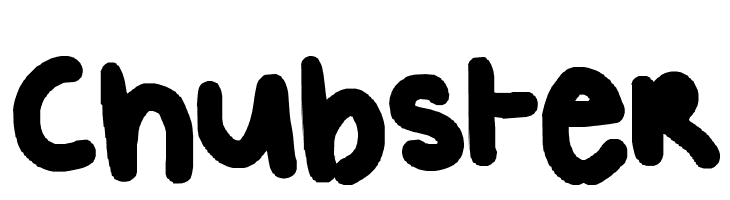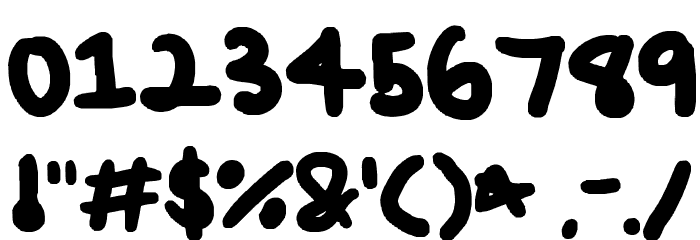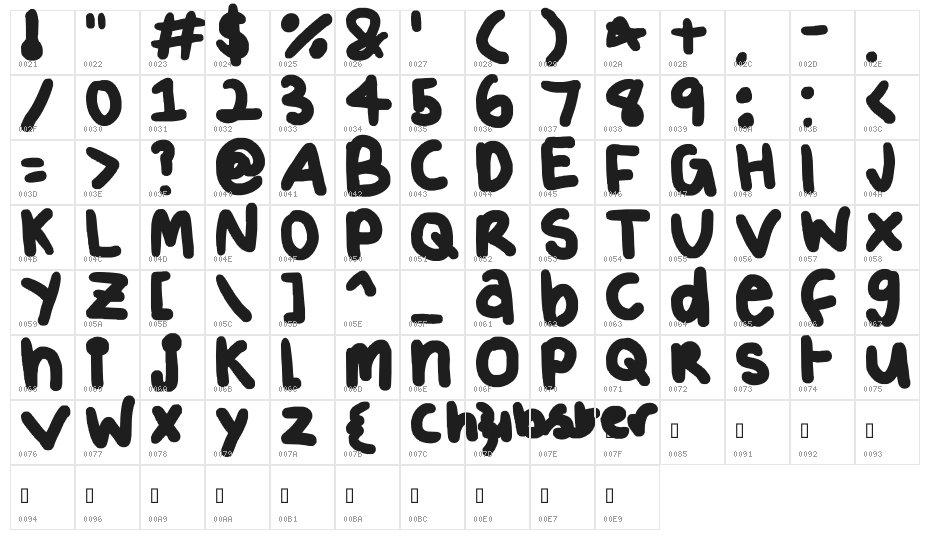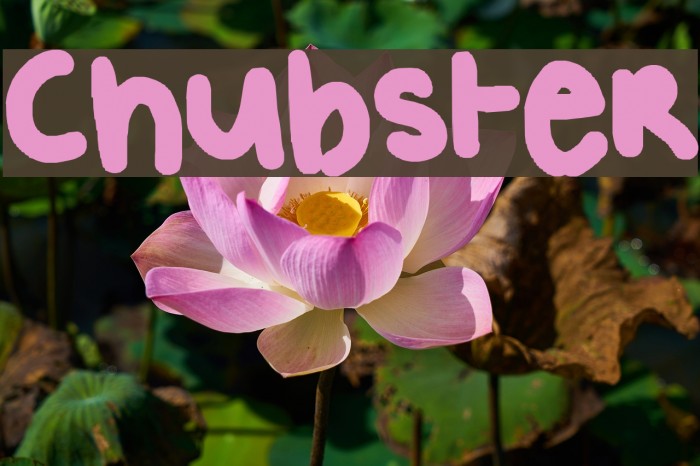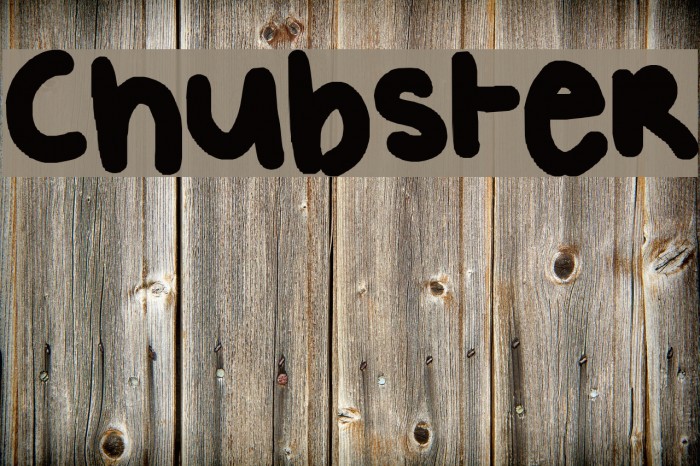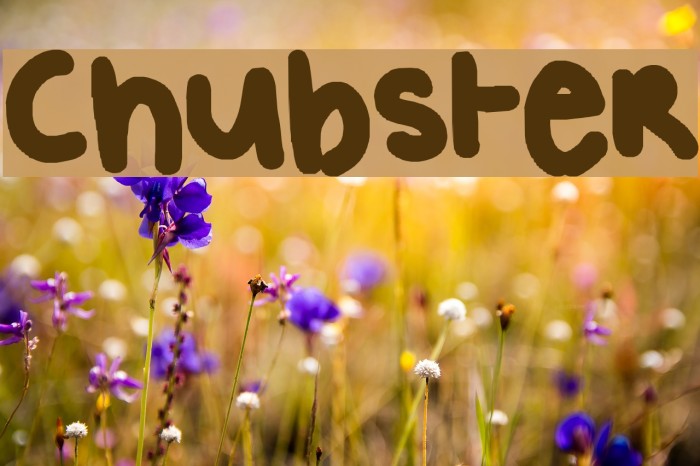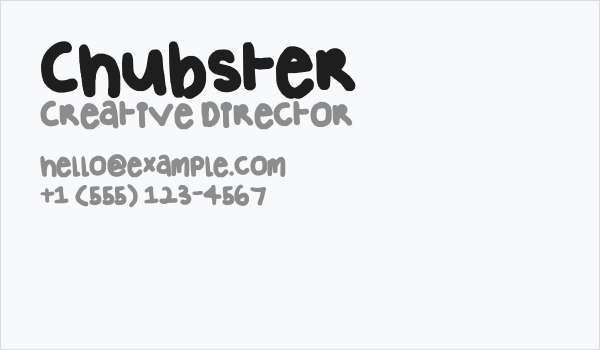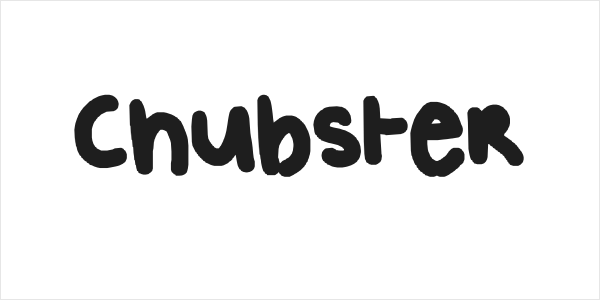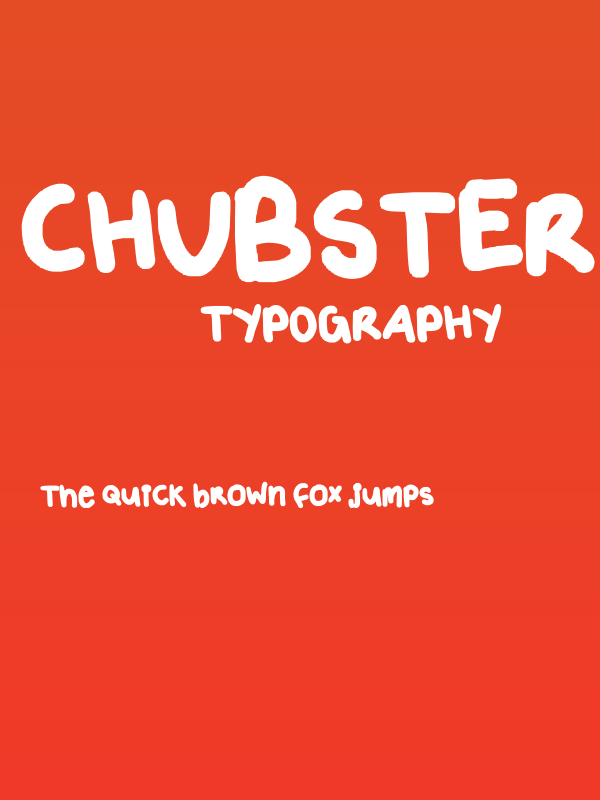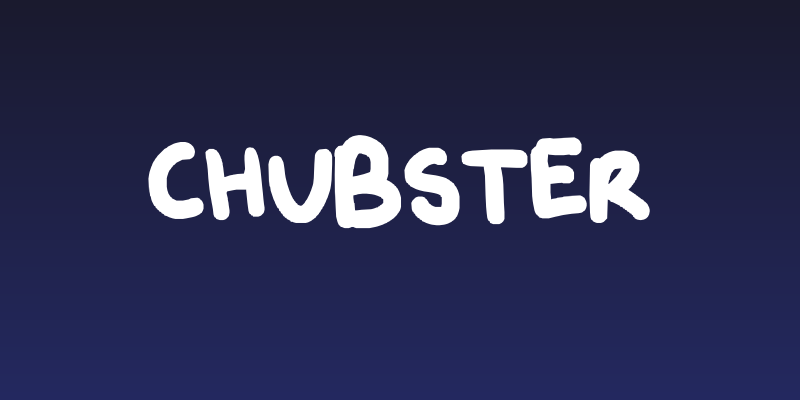
Chubster Font
Chubster Description
This playful and bold font features thick, rounded strokes that give it a friendly and approachable appearance. The characters are slightly irregular, adding a whimsical touch that makes it stand out. Its boldness ensures high visibility, making it suitable for eye-catching designs. The font maintains a consistent weight throughout, with a uniform thickness in each letter. The spacing between characters is tight, which enhances its compact and cohesive look. This font is ideal for projects that require a fun and informal vibe, such as children's books, playful branding, or casual event invitations.